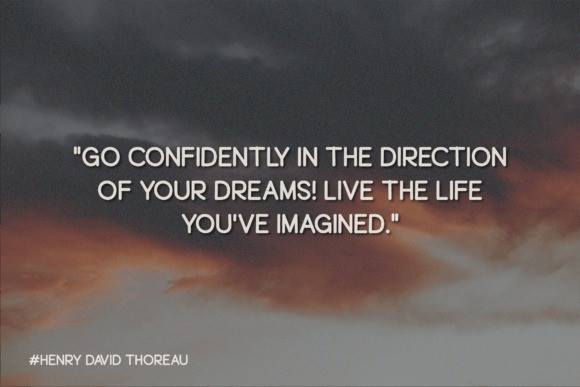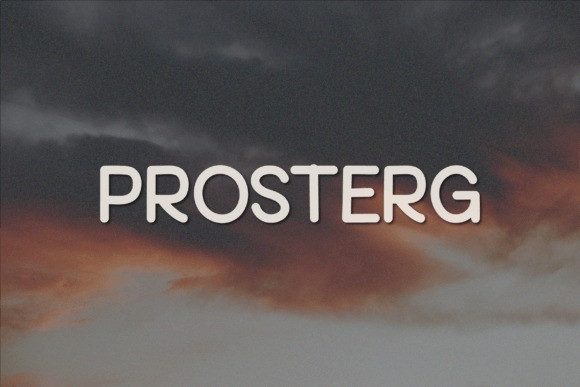
Prosterg Font
Prosterg Font is a quirky all-caps font made up of capital letters. This font is perfect for social media or crafty projects. Simple and smooth perfect for crafting, t-shirts, decals, cards, invitations and so much more.